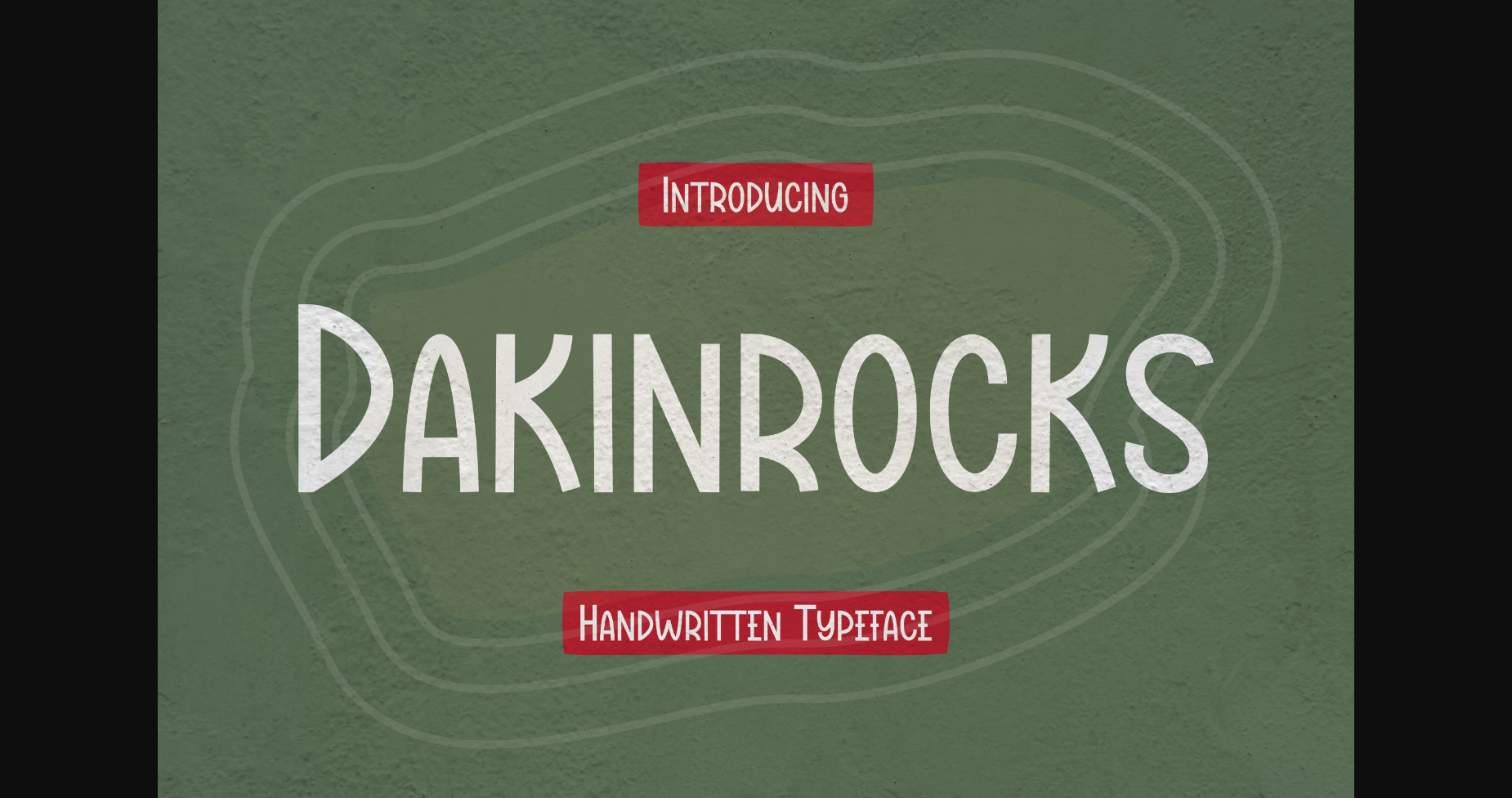
About Dakinrocks Font
Dakinrocks is a stylish sans-serif font that combines a casual and thin-lettered design. Its sleek and minimalistic appearance adds a touch of sophistication to any project. The clean lines and delicate proportions make Dakinrocks versatile and perfect for various applications, from branding and advertising to digital designs. Embrace its contemporary charm and elevate your typographic creations with Dakinrocks.